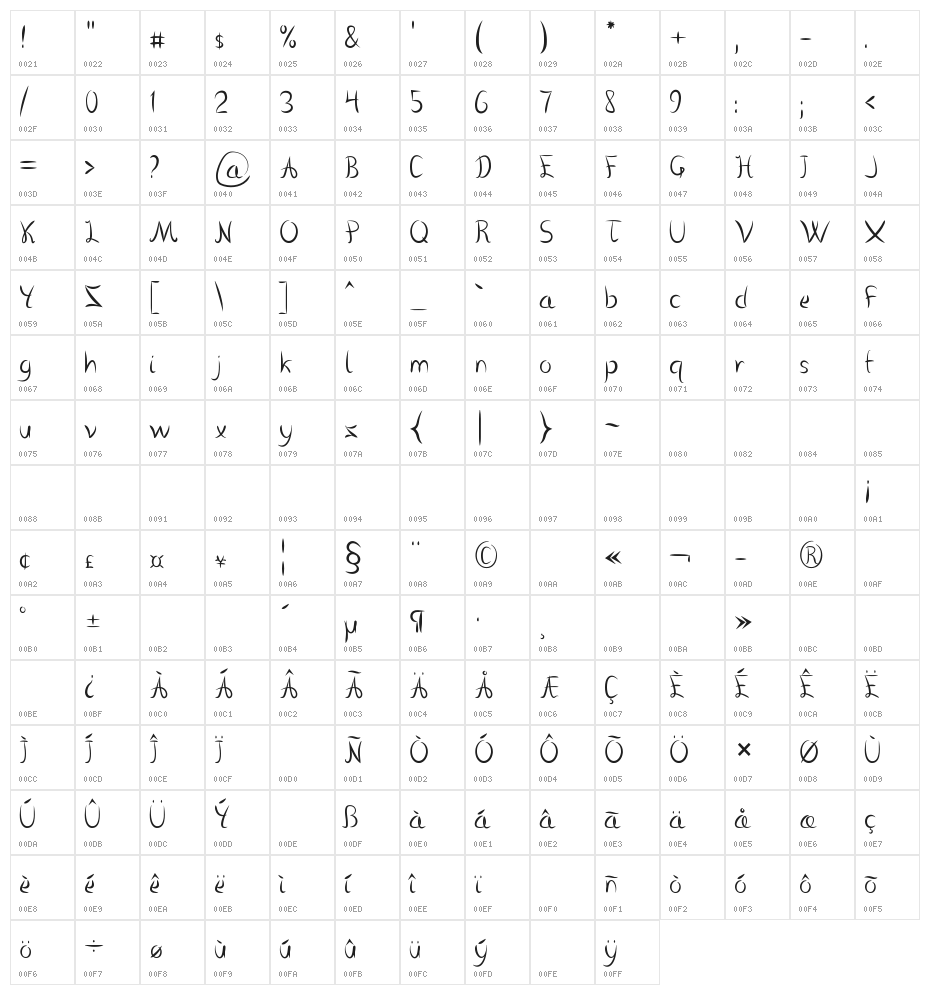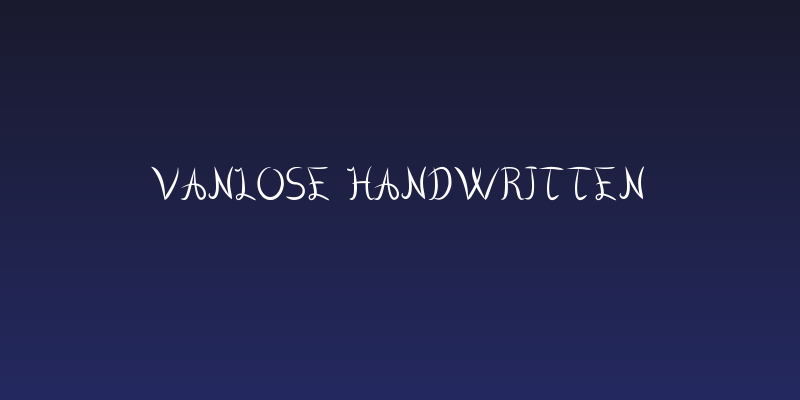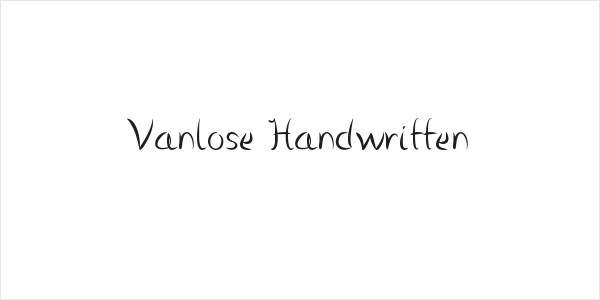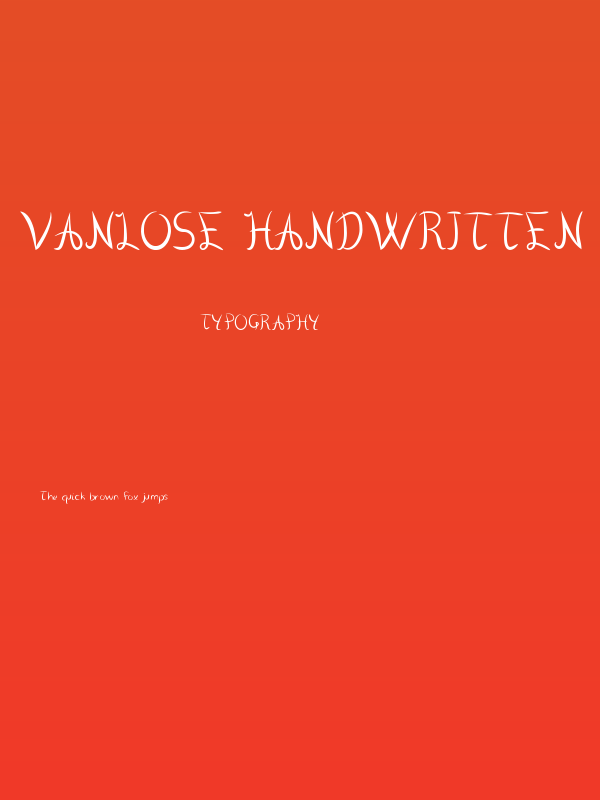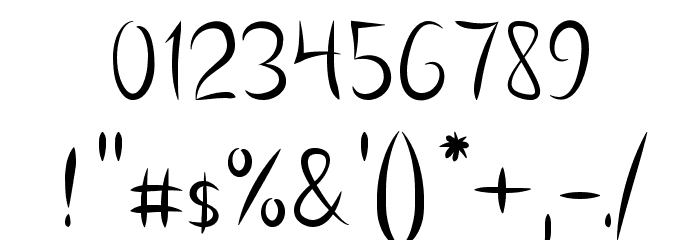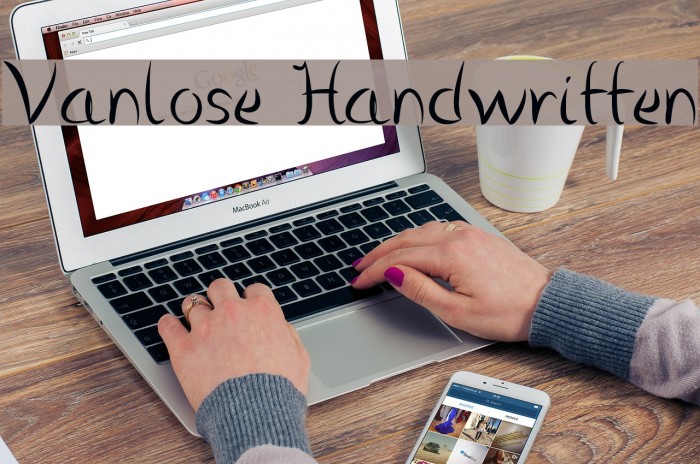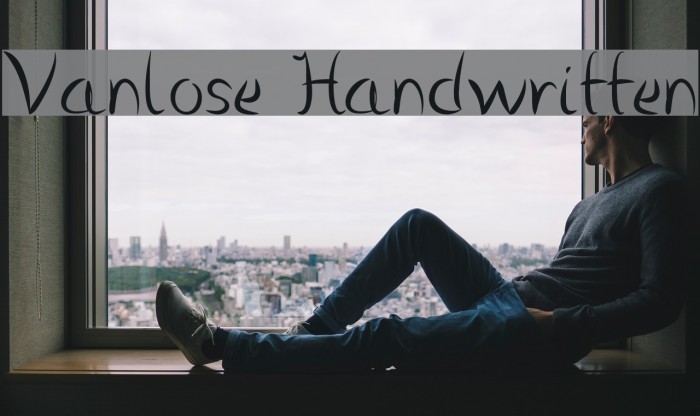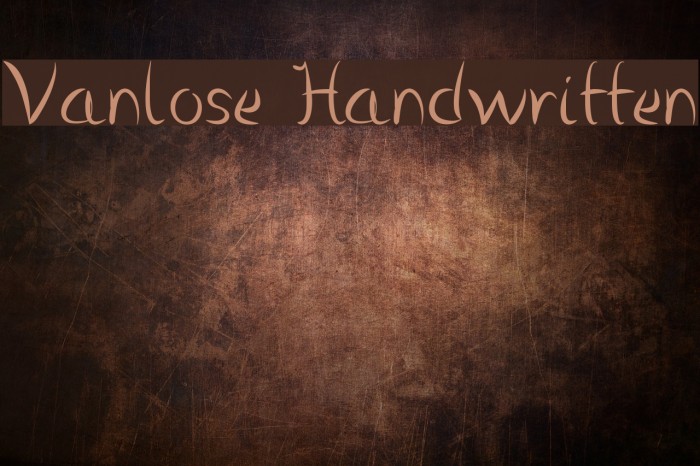
Vanlose Handwritten Font
Vanlose Handwritten Description
This font features a distinctive handwritten style with a playful and artistic flair. The uppercase letters are bold and slightly slanted, giving them a dynamic and energetic appearance. The lowercase letters maintain a consistent flow, with smooth curves and a casual elegance. Numbers are clear and legible, matching the overall whimsical style. Special characters are creatively designed, adding to the font's unique personality. This font is perfect for projects that require a personal touch or a creative, informal vibe.